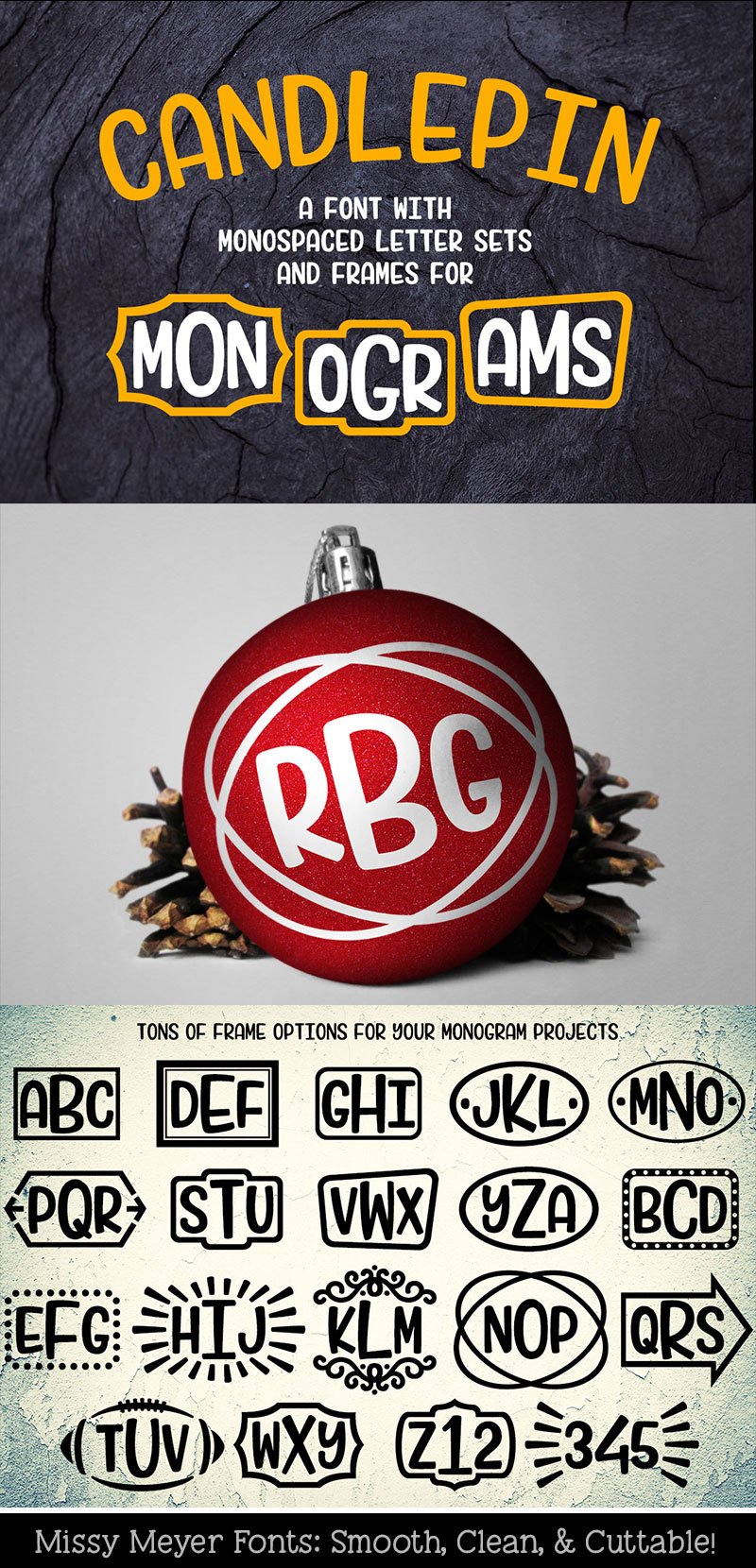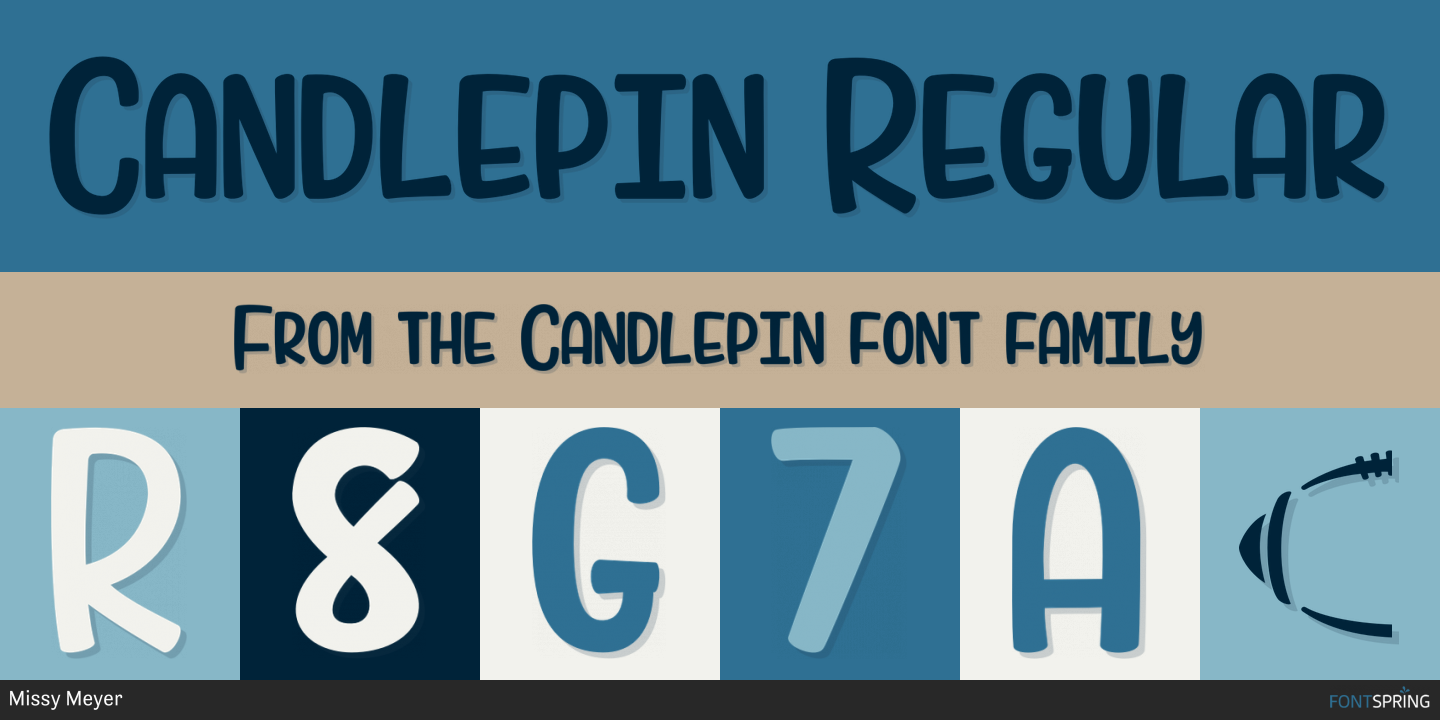
Candlepin Font Free Download - 9,135 downloads (3 yesterday) free for personal use. Elevate your designs with this mesmerizing decorative font. Web your candlepin download includes: Web candleton by letterhend studio. Web candlescript font was designed by m fairuzulhaq aka ve, founder vast (logotype & independent type foundry.
Candlepin Font Free Download - Web candlescript font was designed by m fairuzulhaq aka ve, founder vast (logotype & independent type foundry. 9,135 downloads (3 yesterday) free for personal use. Web archive of freely downloadable fonts. Elevate your designs with this mesmerizing decorative font. Browse by alphabetical listing, by style, by author or by popularity.
Candlepin Font Free Download - Browse by alphabetical listing, by style, by author or by popularity. Web 🌟 introducing candlepin monogram font! Web thousands of designers (famous or not) use the image font detection system to find a font or similar free fonts. Elevate your designs with this mesmerizing decorative font. Web your candlepin download includes:
Candlepin Font Free Download - Elevate your designs with this mesmerizing decorative font. Web candlescript font was designed by m fairuzulhaq aka ve, founder vast (logotype & independent type foundry. Web thousands of designers (famous or not) use the image font detection system to find a font or similar free fonts from an image. Web 🌟 introducing candlepin monogram font! Web candleton by letterhend studio.